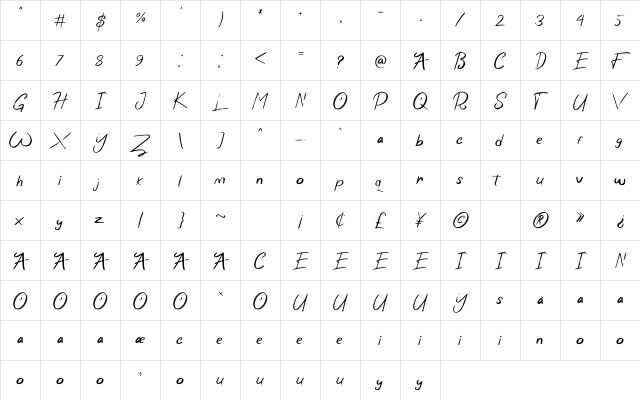
Wonder Scribble Regular
| Foundry | Attype Studio |
| Designer | Attype Studio |
Design Context for Wonder Scribble Typeface
Wonder Scribble is a composed and adaptable typeface that performs quietly and consistently across a wide range of design contexts.